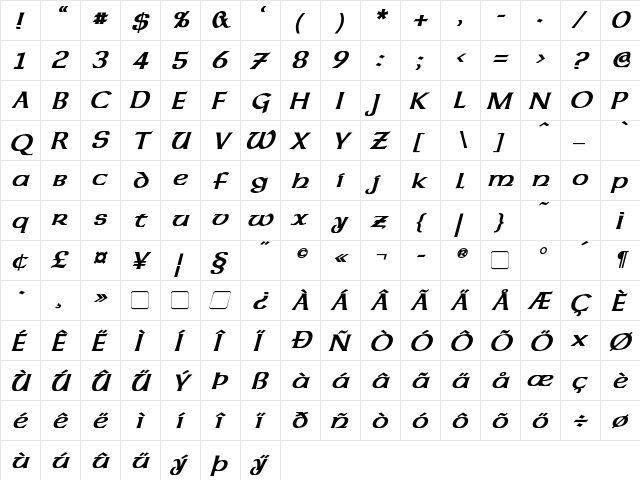
Dalelands Uncial Bold Italic
Design Context for Dalelands Uncial Typeface
Dalelands Uncial takes a measured approach to typography — its balanced proportions and neutral character make it a reliable workhorse for both digital and print work. The slanted form adds forward momentum and visual energy. Its bold stroke weight gives it real presence on the page.
Pro Tip: Use Dalelands Uncial for emphasis, pull quotes, and subheadings where its slanted energy can add rhythm to the layout.